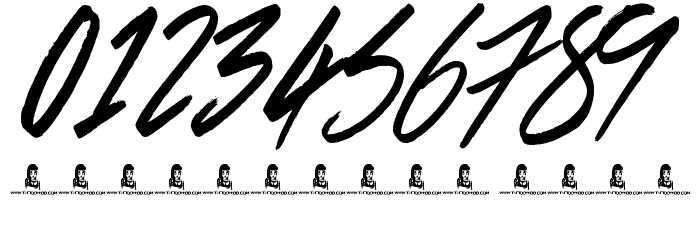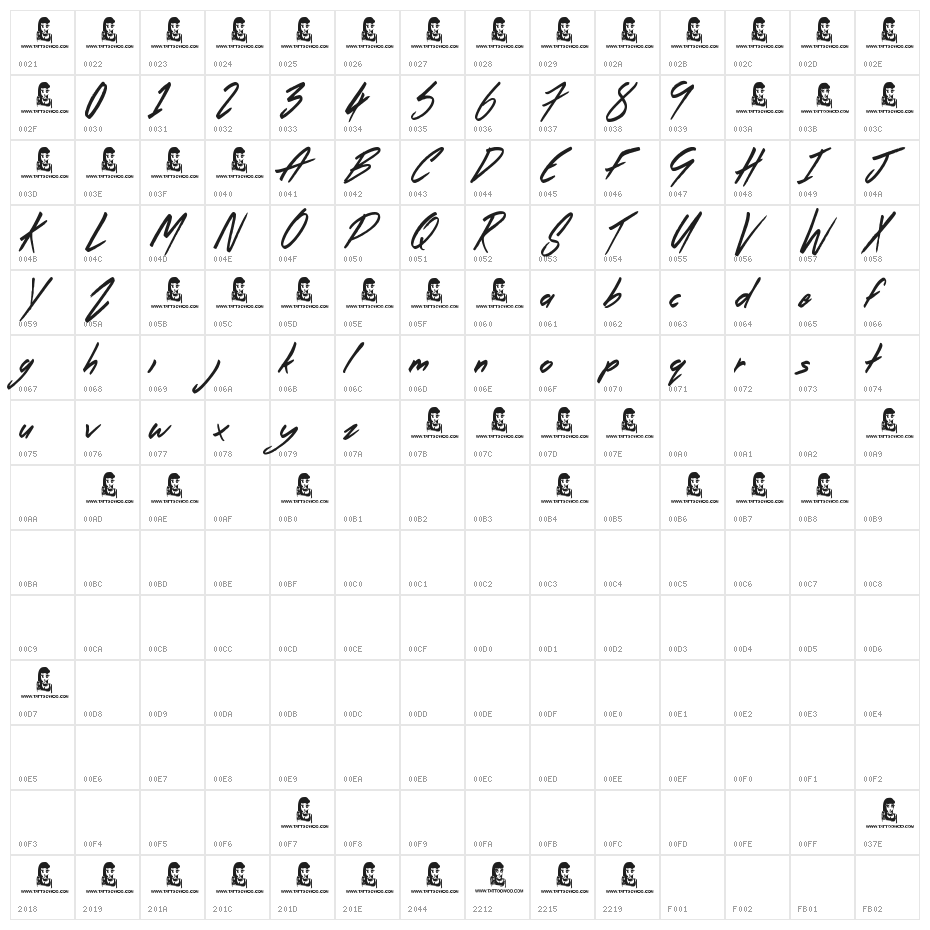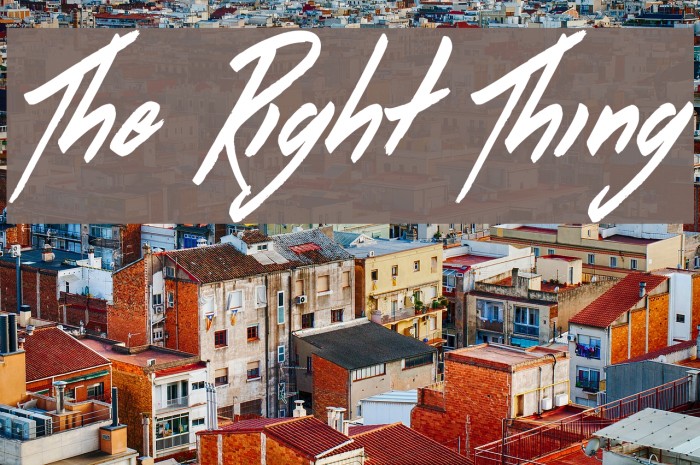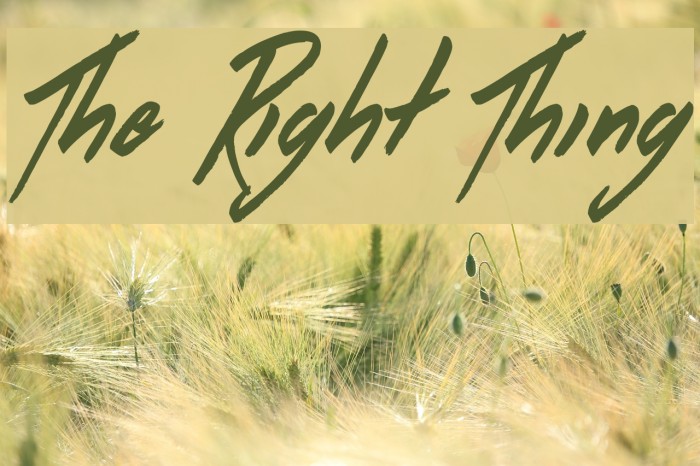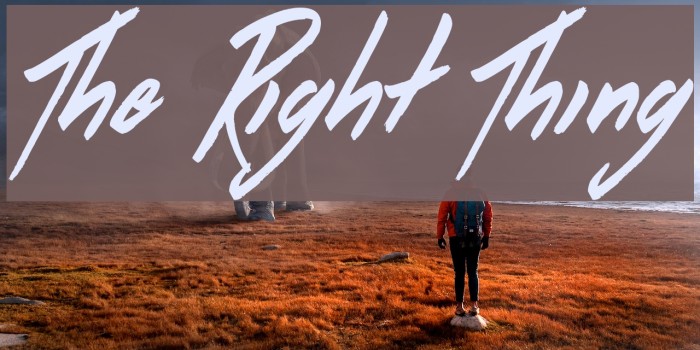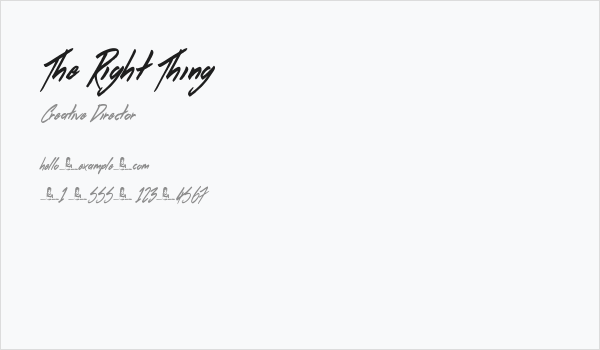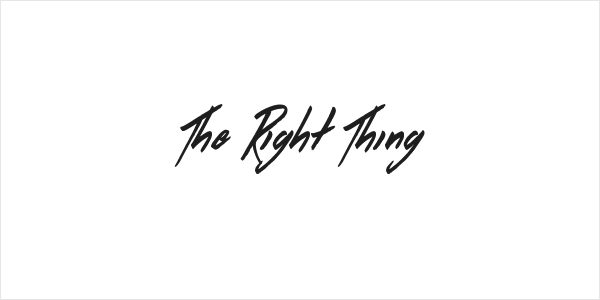
The Right Thing Font
The Right Thing Description
This font features a dynamic and expressive handwritten style, characterized by its fluid and energetic strokes. The letters are slightly slanted, giving a sense of movement and spontaneity. The uppercase and lowercase letters maintain a consistent style, with a playful yet sophisticated appearance. The numbers and special characters are crafted with the same attention to detail, ensuring a cohesive look across all elements. This font's unique personality makes it stand out, offering a modern twist on traditional handwriting.
| Proposed Projects | Ideal for branding projects, creative invitations, personal signatures, and artistic posters. |